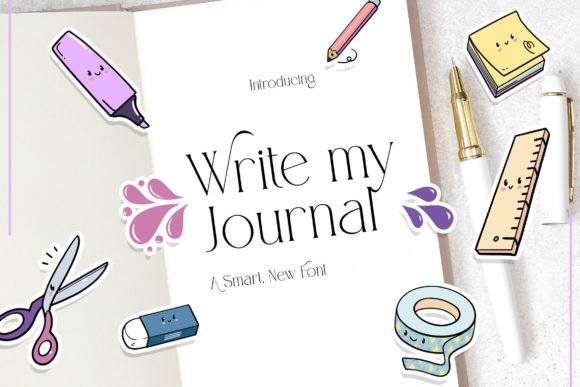
Looking for the best font for academic journal writing? Look no further than Write My Journal Font! Created by the experts at Jupiter Studio, this font is the perfect blend of classic and modern, making it the perfect addition to any academic writing project.
With its stunning serif and added alternates, Write My Journal Font adds a touch of flair to your writing while maintaining a professional look. Plus, the font is PUA encoded, which means you can easily access all of the amazing glyphs and ligatures that make this font so unique.
Whether you're a student or a professional, Write My Journal Font is the perfect choice for anyone looking to elevate their academic writing. With its eye-catching design and versatile capabilities, this font is sure to impress your readers and make your work stand out from the rest.